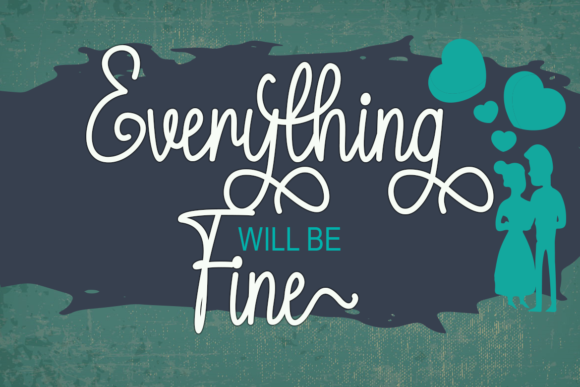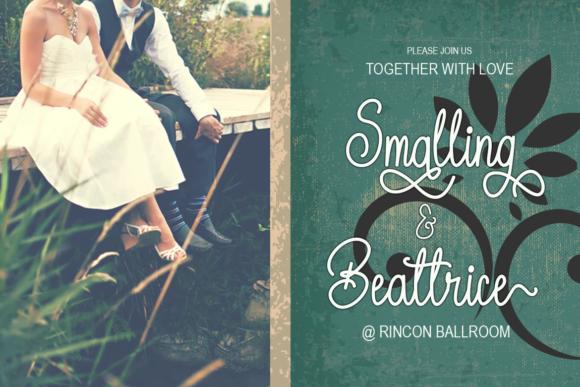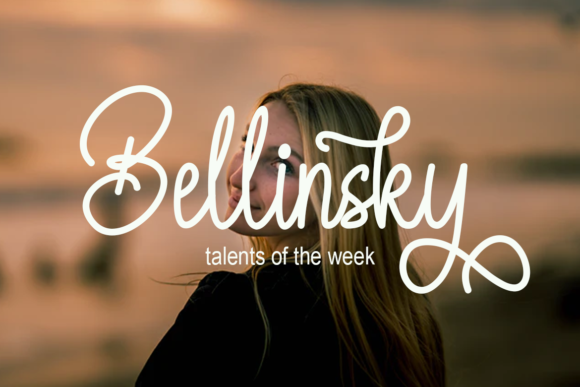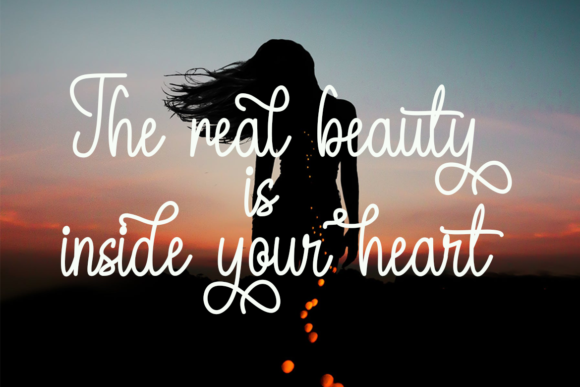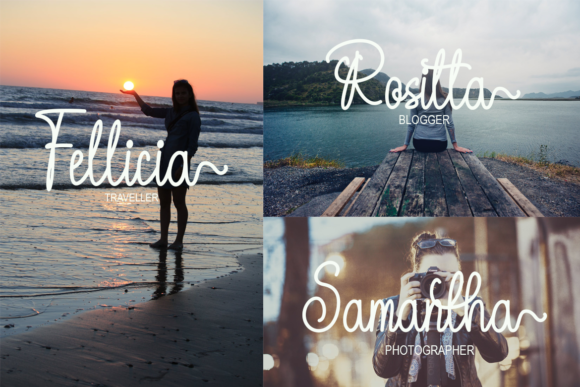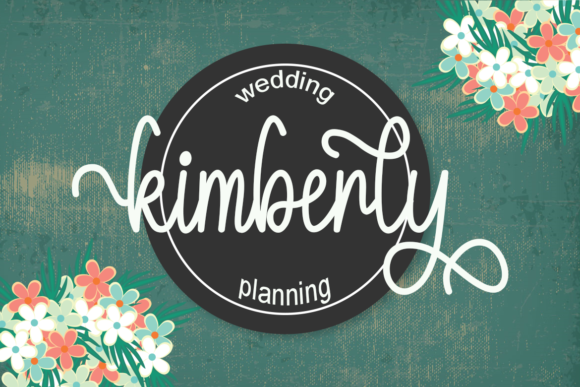
Introducing Beautyline Font: Elevate Your Designs with a Touch of Elegance
In the world of design, fonts play a crucial role in conveying the message and aesthetic of a project. For crafters, designers, and DIY enthusiasts, finding the perfect font can be a game-changer. If you’re on the hunt for a typeface that exudes elegance, sophistication, and a dash of personal touch, look no further than the Beautyline Font. This stunning handwritten font is about to revolutionize the way you approach your designs, from wedding invitations to logos, and everything in between.
The Beauty of Beautyline Font
Beautyline Font is a genuine and dazzling handwritten font that boasts a unique charm. Its fluid strokes and delicate curves make it an ideal choice for designs that require a personalized style. Whether you’re working on wedding invitations, thank you cards, greeting cards, or even logos, this font is sure to impress. Its versatility knows no bounds, allowing you to experiment with various design projects with ease.
What Makes Beautyline Font Special?
Beautyline Font is an excellent choice for a wide range of design projects, including:
- Wedding invitations: Add a touch of romance and sophistication to your wedding stationery with this beautiful font.
- Thank you cards: Express your gratitude in style with Beautyline Font’s elegant script.
- Greeting cards: Create stunning greeting cards for special occasions, such as birthdays, anniversaries, and holidays.
- Logos: Use Beautyline Font to create a unique and memorable logo for your business or brand.
Beautyline Font offers numerous benefits for designers and crafters, including:
- Versatility: This font is suitable for a wide range of design projects, from digital to print.
- Unique style: Beautyline Font’s elegant script adds a touch of sophistication to any design.
Tips for Getting the Most Out of Beautyline Font
To make the most of Beautyline Font, here are a few tips to keep in mind: